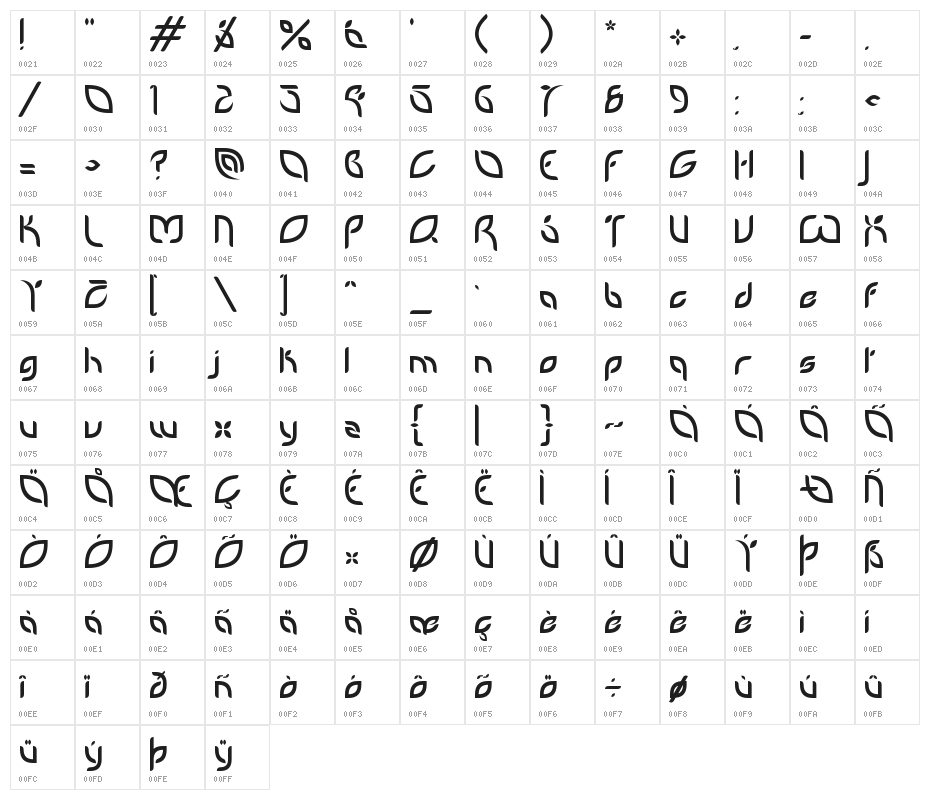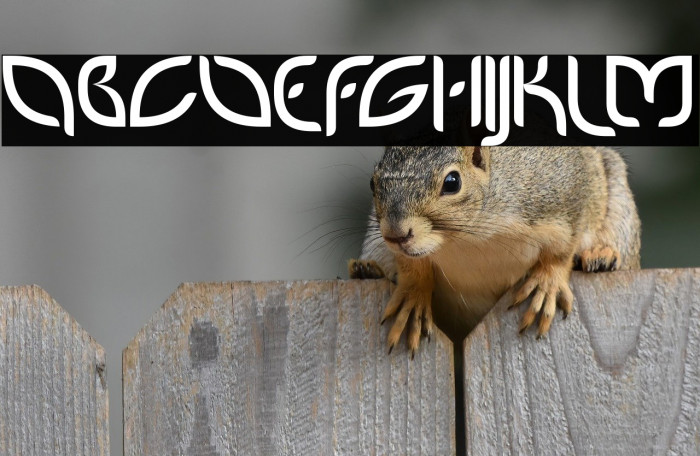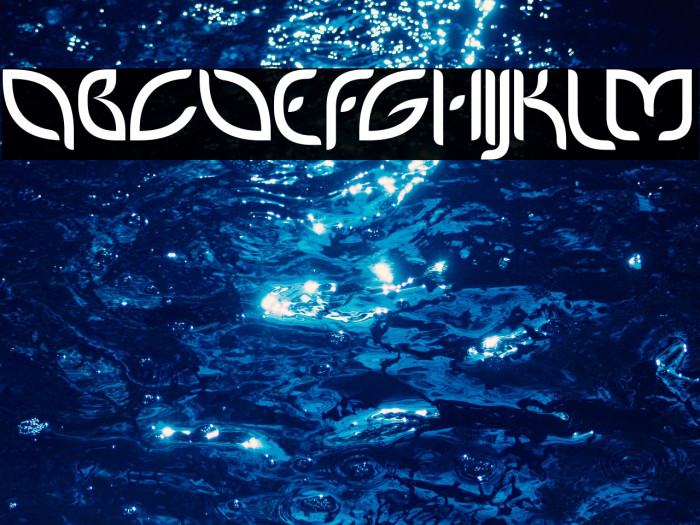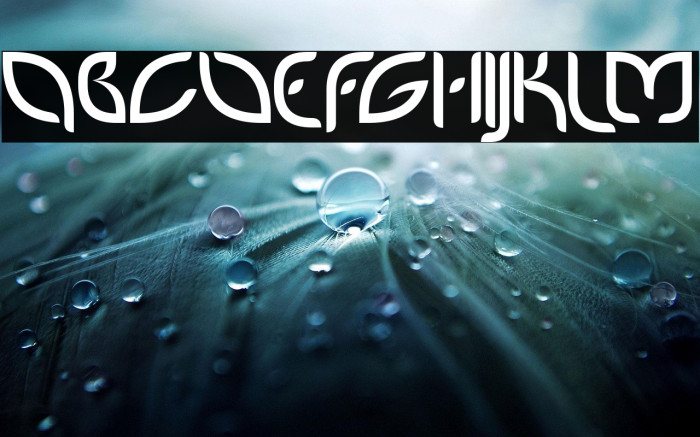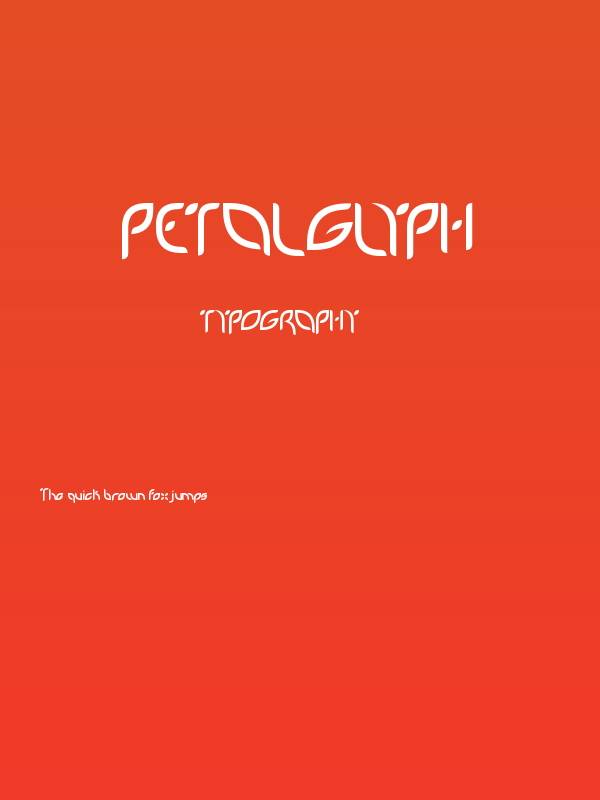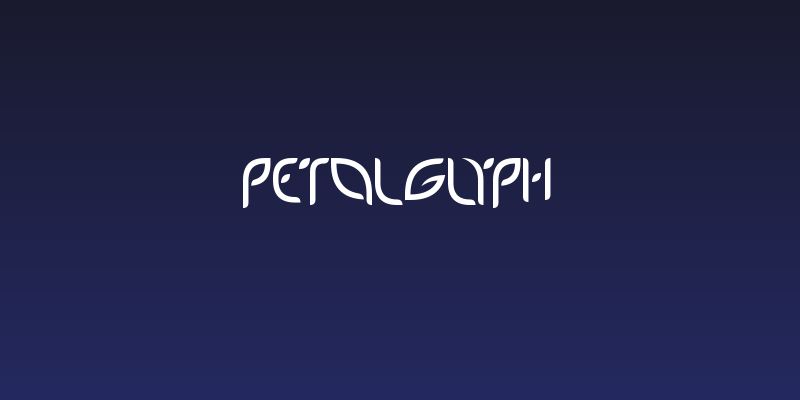
PetalGlyph Font
PetalGlyph Description
This font features a unique and modern design with a futuristic flair. The characters are composed of bold, curved lines that create a sense of movement and dynamism. The uppercase and lowercase letters maintain a consistent style, with rounded edges and a smooth flow. The numbers and special characters follow the same design principles, ensuring a cohesive look across all elements. The font's distinct appearance makes it stand out, with a playful yet sophisticated vibe that is perfect for creative projects.